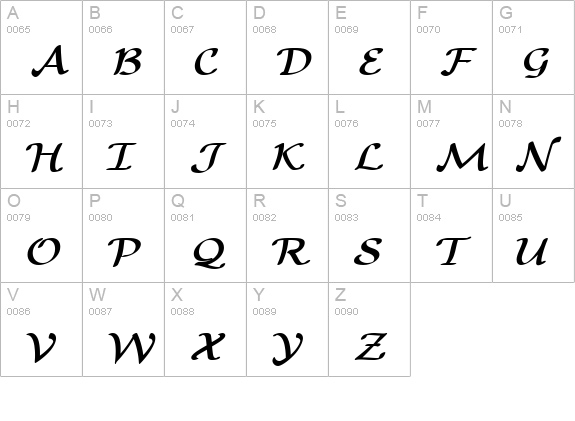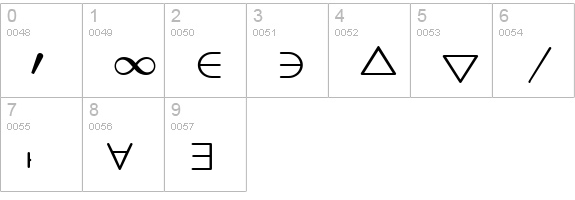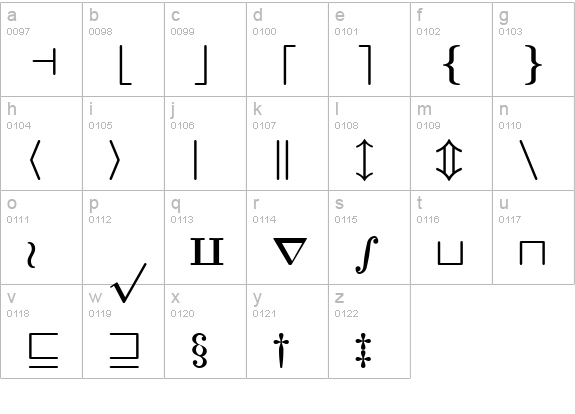
TeXplus SY Bold is a strong, high-contrast variant in the TeXplus typeface family \xE2\x80\x94 well suited to headlines, attention-grabbing titles, and strong calls-to-action.
TeXplus SY Bold is a stunning and versatile font that will elevate any design project to new heights. With its bold and commanding presence, this font demands attention and leaves a lasting impression. The clean and sharp edges of each letter create a sense of modernity and professionalism, making it perfect for a wide range of applications. Whether you're designing a logo, creating eye-catching headlines, or crafting a sleek and stylish branding package, TeXplus SY Bold will deliver results that exceed your expectations. Its bold weight ensures that your message is communicated with confidence and authority, while its sophisticated design adds a touch of elegance and sophistication to any project. But what sets TeXplus SY Bold apart from other fonts is its availability for free download at FontsMarket.com. That's right, this incredible font is freely accessible, allowing you to harness its power and unleash your creativity without any barriers. Now you can create stunning designs without breaking the bank, making TeXplus SY Bold the perfect choice for designers, entrepreneurs, and creative individuals who value both quality and affordability. So why wait? Download TeXplus SY Bold today and experience the endless possibilities it offers. From print materials to digital designs, this font will enhance your work and make it truly stand out. Don't miss out on this opportunity to elevate your design game. Get TeXplus SY Bold now and take your projects to new heights.